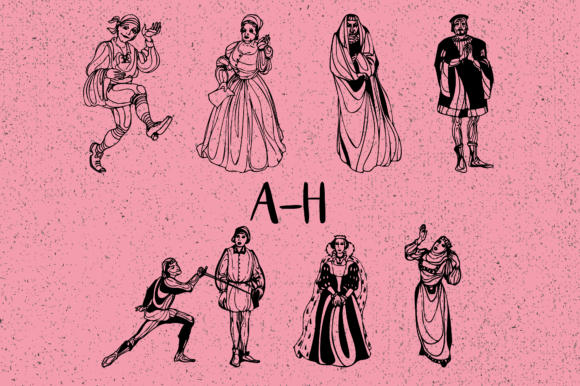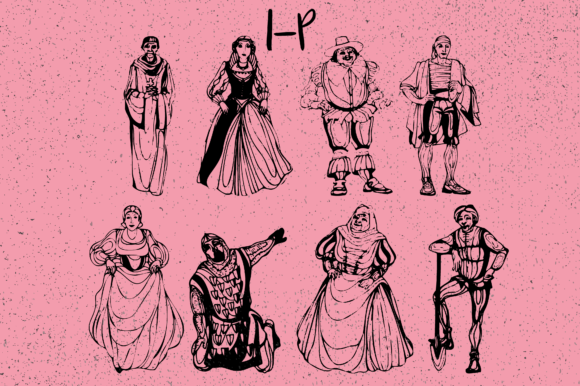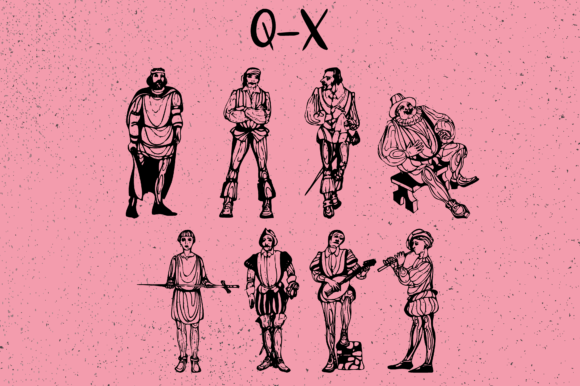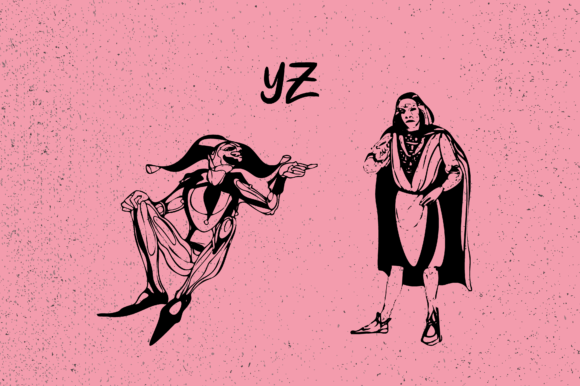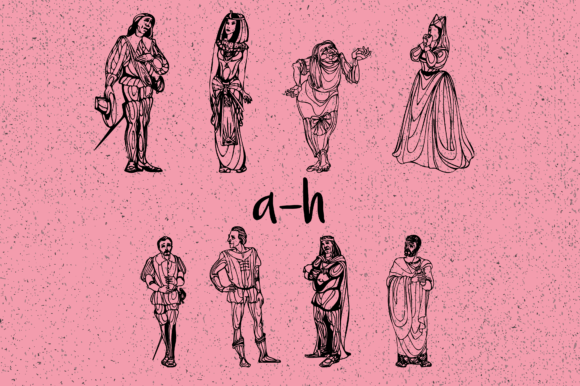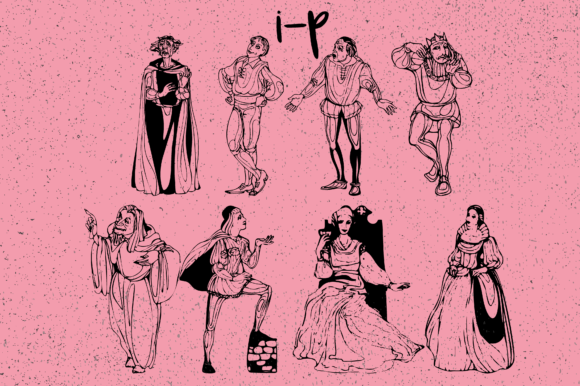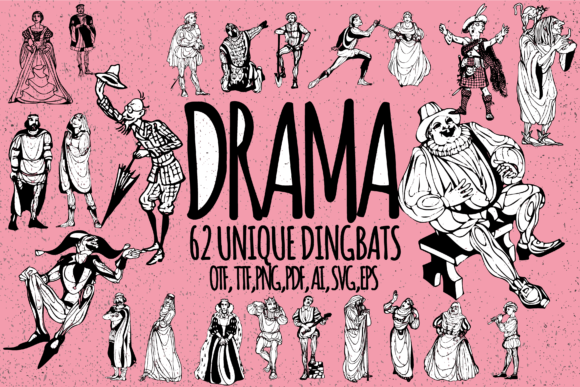
Drama Font: Unleash Your Creativity with this Cool Dingbats Typeface
Are you a designer, crafter, or artist looking for a unique and versatile font to add some drama to your projects? Look no further than the Drama Font, a cool dingbats typeface that allows you to generate up to 62 unique drama characters in various poses and actions. With Drama Font, you can add a touch of excitement and emotion to your designs, making them stand out from the crowd.
What is Drama Font?
Drama Font is a specially designed dingbats typeface that uses a combination of capital and small letters, as well as numbers, to create a wide range of drama characters. This innovative font is perfect for designers, crafters, and artists who want to add some extra flair to their projects. Whether you’re working on a graphic design project, creating handmade cards, or crafting unique jewelry, Drama Font is the perfect tool to help you express your creativity.
Key Features of Drama Font
- 62 Unique Drama Characters: With Drama Font, you can generate up to 62 unique drama characters in various poses and actions, giving you plenty of options to choose from.
- Ease of Use: Drama Font is easy to use, simply type capital and small letters, as well as numbers, to create your desired drama characters.
- Versatility: Drama Font is perfect for a wide range of projects, including graphic design, crafting, and art.
- Cool and Unique: Drama Font is a cool and unique dingbats typeface that will add a touch of excitement and emotion to your designs.
- Capital Letters: Type capital letters to create drama characters in various poses and actions.
- Small Letters: Type small letters to create additional drama characters with different expressions and emotions.
- Numbers: Type numbers to create even more drama characters with unique poses and actions.
Benefits of Using Drama Font
Drama Font offers a range of benefits for designers, crafters, and artists, including:
- Increased Creativity: With Drama Font, you can add a touch of excitement and emotion to your designs, making them more engaging and eye-catching.
- Time-Saving: Drama Font saves you time and effort, allowing you to create unique drama characters quickly and easily.
- Versatility: Drama Font is perfect for a wide range of projects, making it a valuable addition to your design toolkit.
Examples of Drama Font in Action
Drama Font can be used in a variety of projects, including:
- Graphic Design: Use Drama Font to add a touch of excitement and emotion to your graphic design projects, such as brochures, posters, and flyers.
- Handmade Cards: Add a personal touch to your handmade cards with Drama Font, creating unique and eye-catching designs.
- Jewelry Making: Use Drama Font to create custom jewelry designs, such as pendants and charms, with a touch of drama and emotion.
Drama Font is a cool and versatile dingbats typeface that is perfect for designers, crafters, and artists looking to add some excitement and emotion to their projects. With its ease of use, versatility, and range of unique drama characters, Drama Font is a valuable addition to any design toolkit. So why not give Drama Font a try and unleash your creativity today?